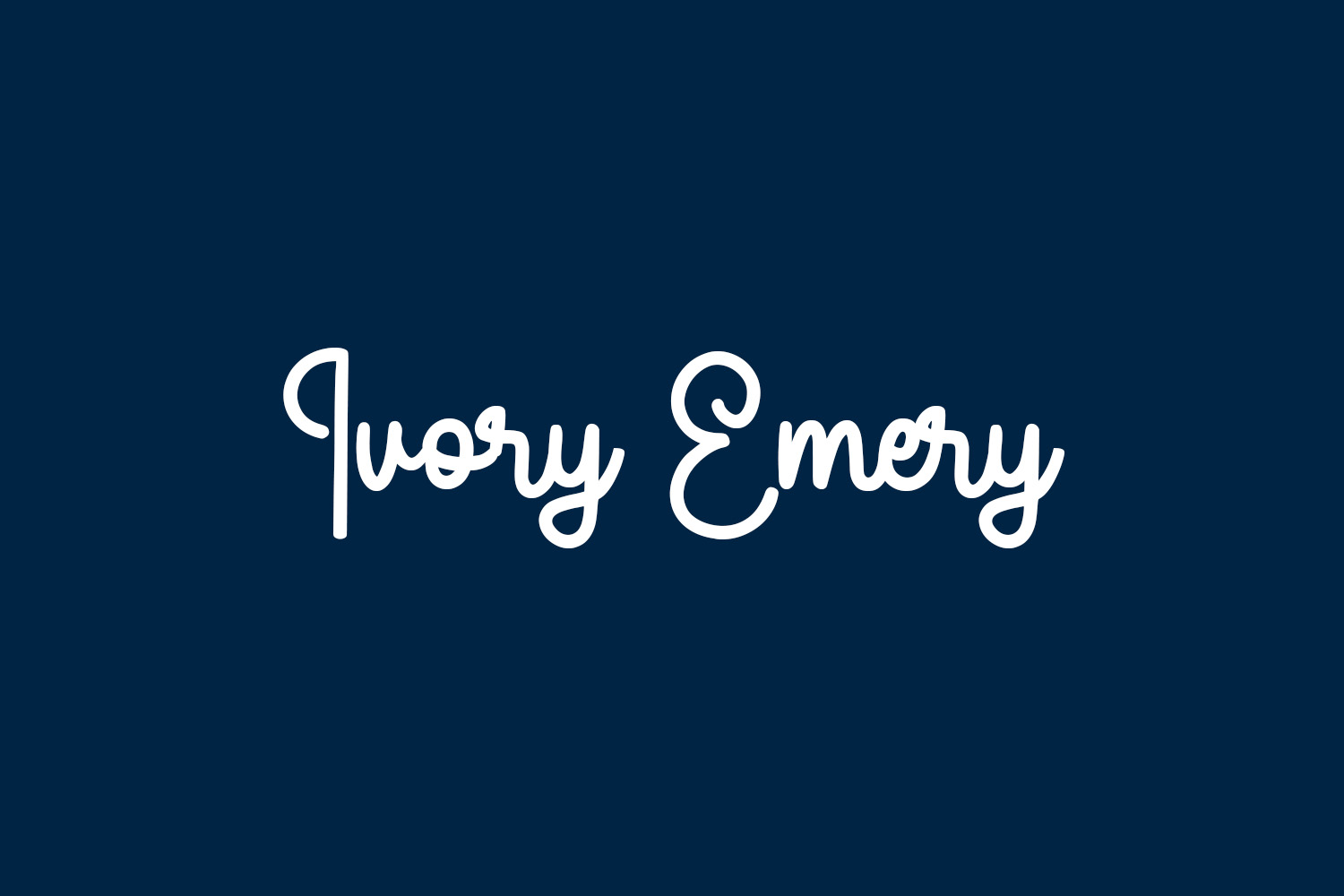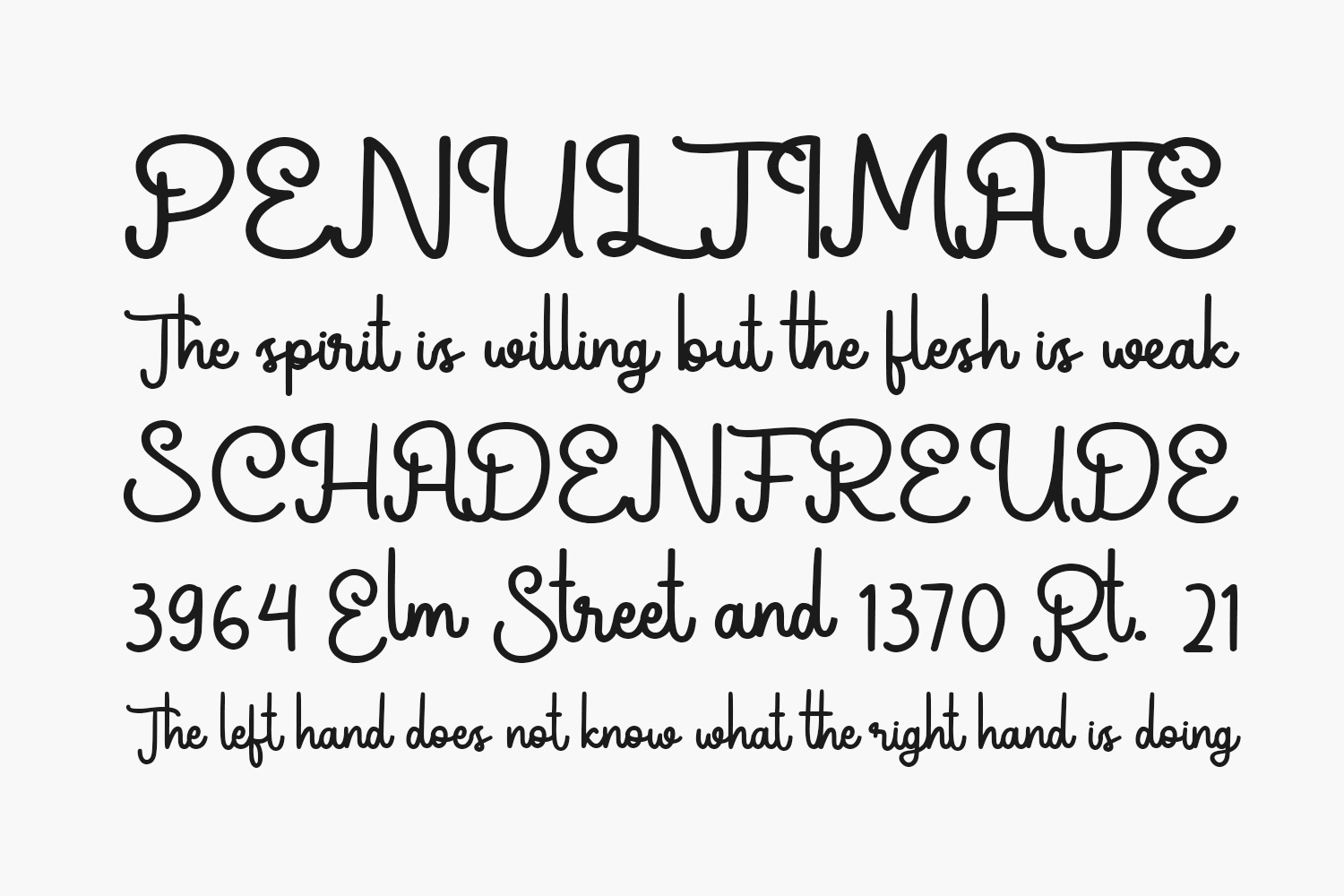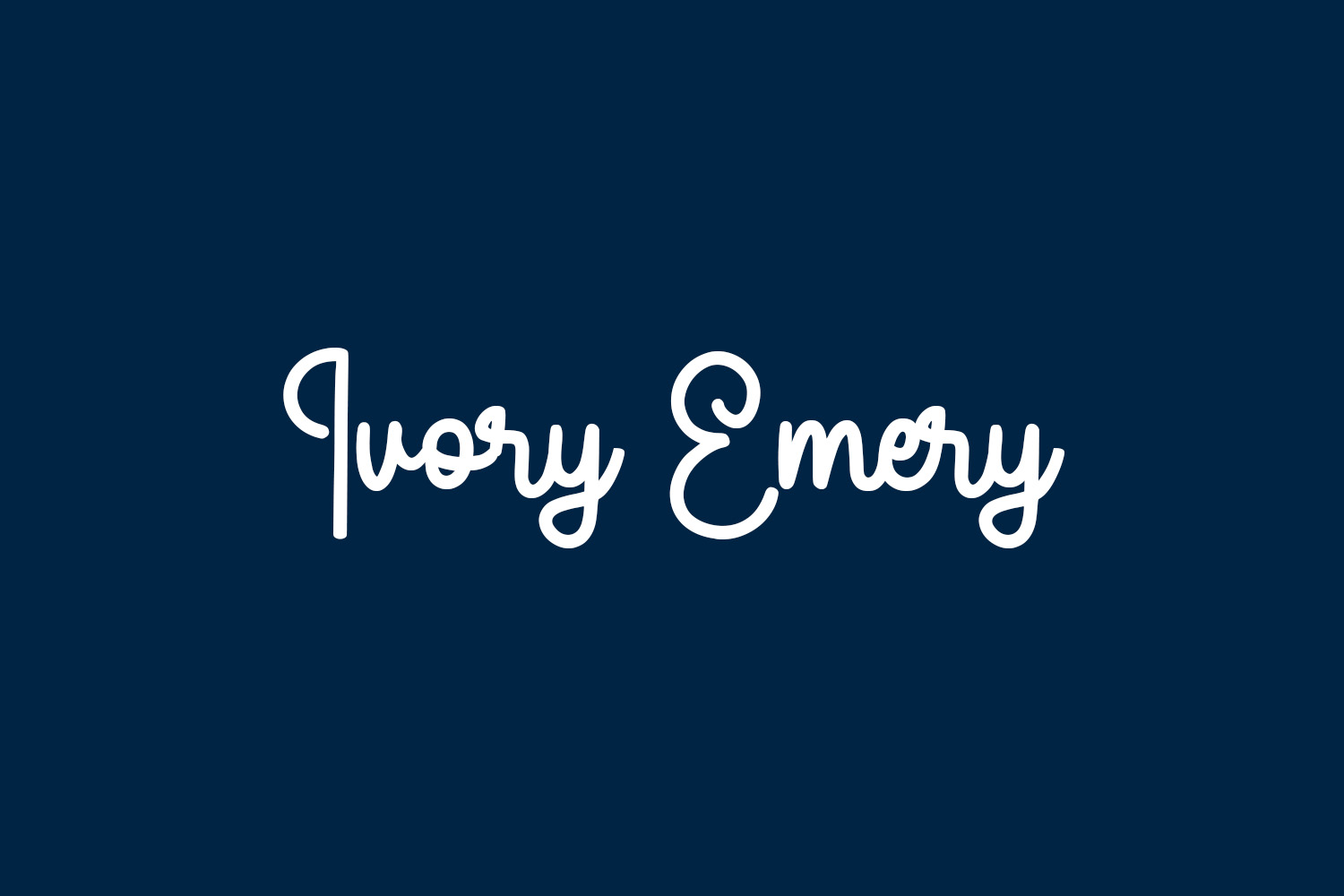
Ivory Emery Free Font is a beautiful and elegant cursive script that exudes a sense of grace and poise. Its flowing lines and delicate curves are reminiscent of a dancer’s movements, and its delicate, airy appearance evokes a sense of whimsy and romance. Whether used for a wedding invitation or a heartfelt letter, Ivory Emery Free Font is sure to add a touch of emotion and personality to any project. Its soft, creamy hue is reminiscent of the delicate, smooth surface of ivory, and its timeless, classic style will stand the test of time, making it a perfect choice for any occasion.